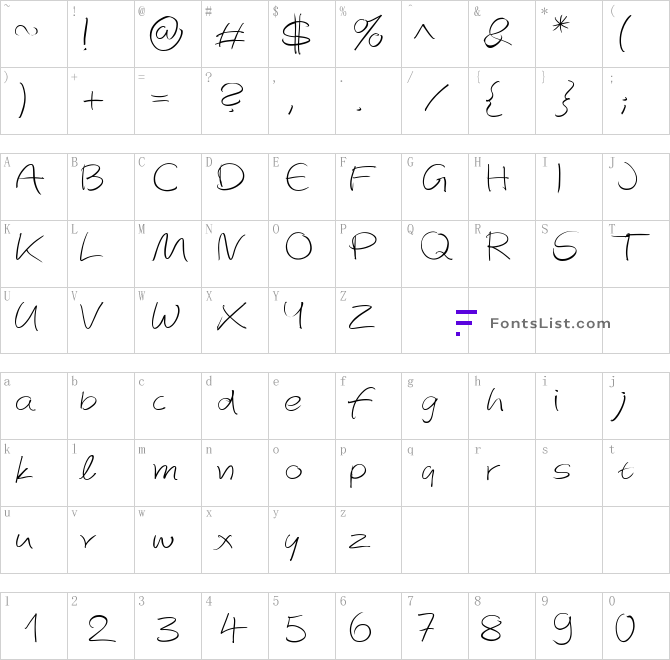
- Font Name:AutographScriptEF-Light
- Full Name:AutographScriptEF-Light
- Copyright:copyright © 1998 Elsner+Flake. All Rights Reserved. Design KOMA AMOK¨, jakob & mei§ner 1998
AutographScriptEF-Light.ttf is a very beautiful artistic font, AutographScriptEF-Light.ttf is widely used in the design and printing of various books and pictures,AutographScriptEF-Light.ttf has a strong visual impact,AutographScriptEF-Light.ttf is a commonly used font in newspapers, magazines and books, and is used in posters, e-commerce Poster design, store design, logo design, font design and other fields.AutographScriptEF-Light.